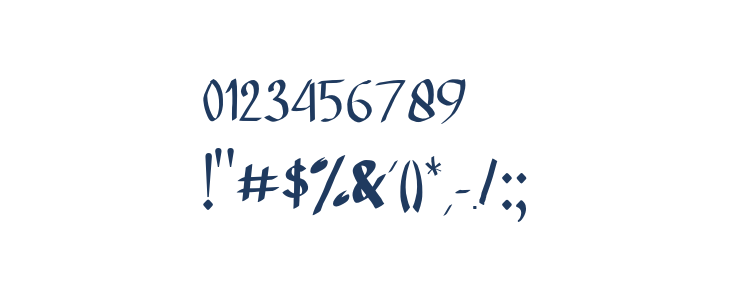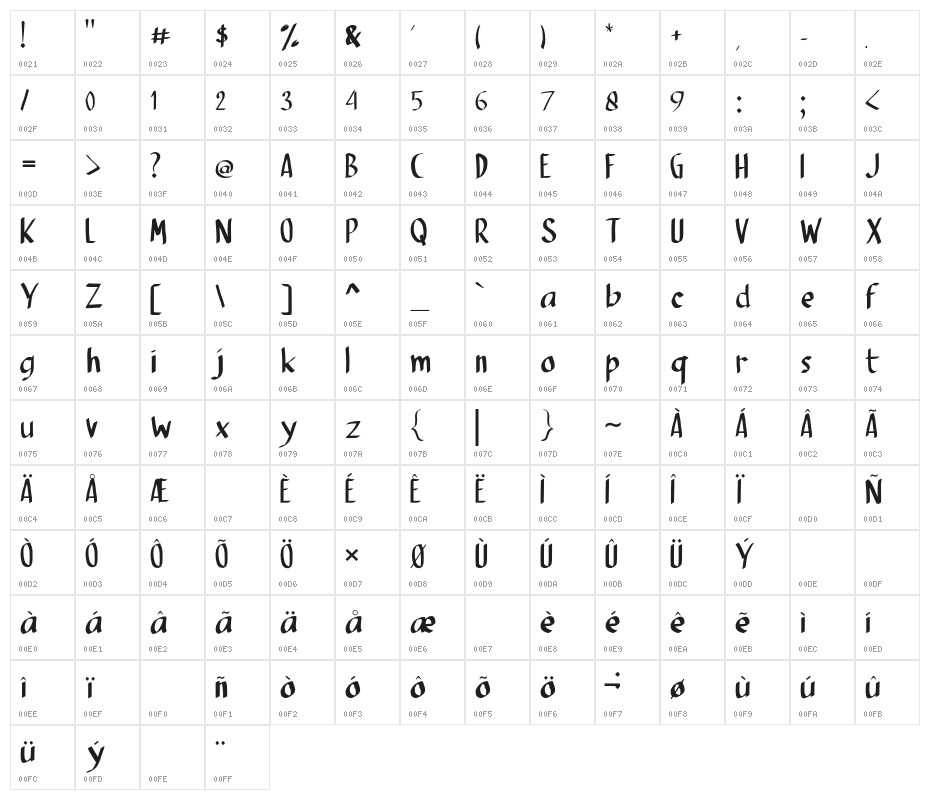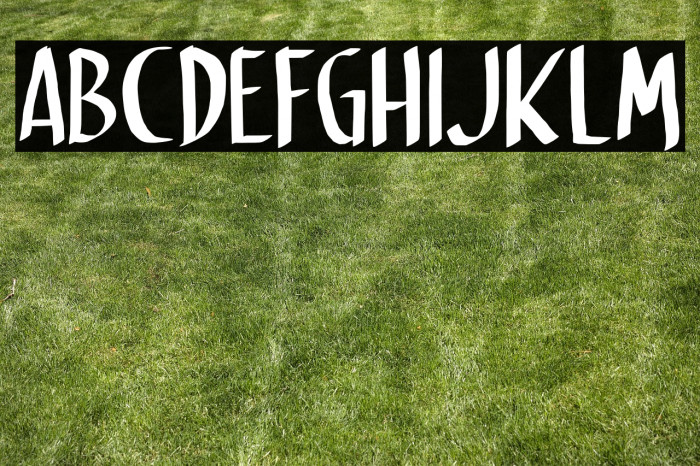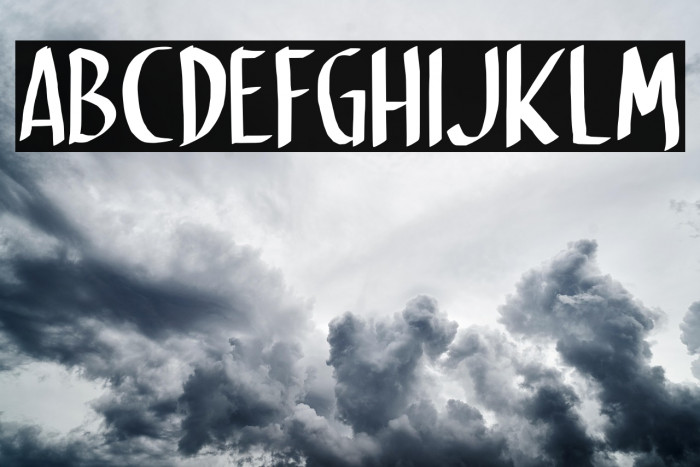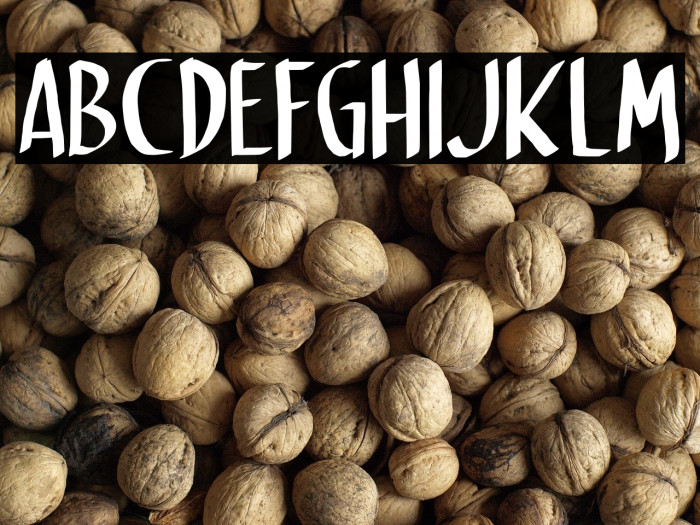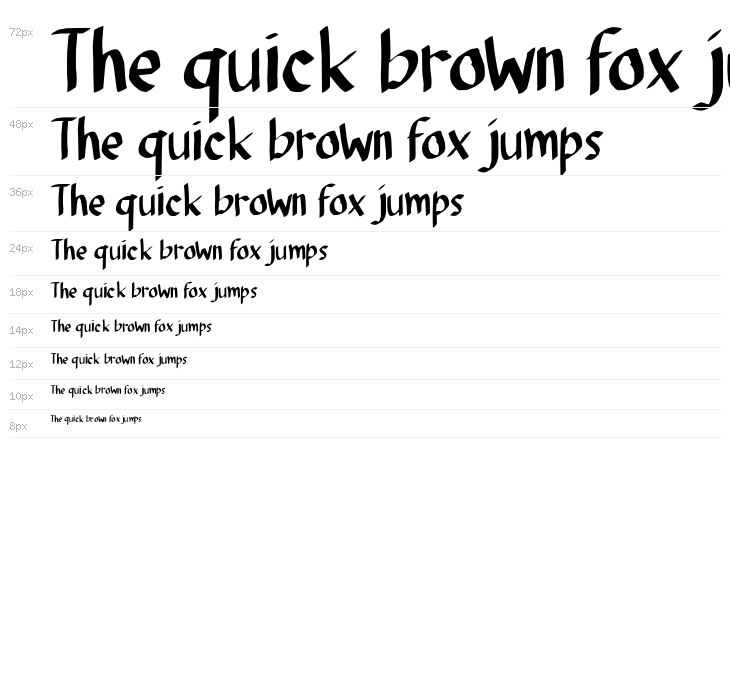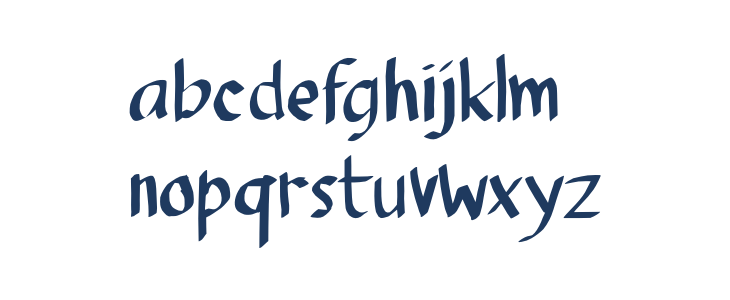
MrWhite Font
MrWhite Description
This font features a bold and dynamic style with a hand-drawn appearance. The characters are slightly irregular, giving it a lively and energetic feel. The uppercase letters are tall and narrow, while the lowercase letters maintain a consistent flow, enhancing readability. The numbers and special characters follow the same playful and artistic design, making the font versatile for various creative applications. Its unique style is perfect for projects that require a personal touch or a sense of movement and excitement.
A bold, hand-drawn font with dynamic and lively characters from Uncategorized fonts.
- Font: MrWhite